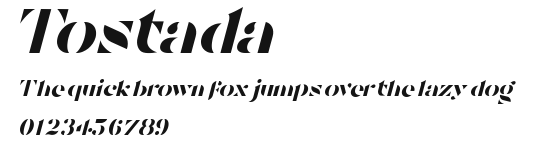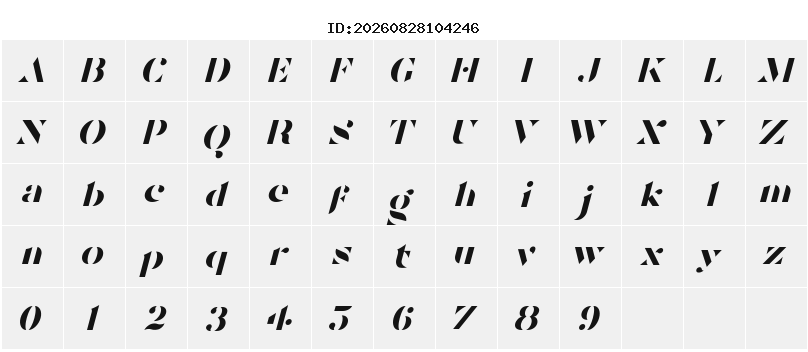
• Font Name: Tostada
• Full Font Name: Tostada Italic
Tostada.ttf is a modern, elegant sans-serif font designed for ultimate readability and visual harmony. Perfect for branding, headlines, web design, and print materials.